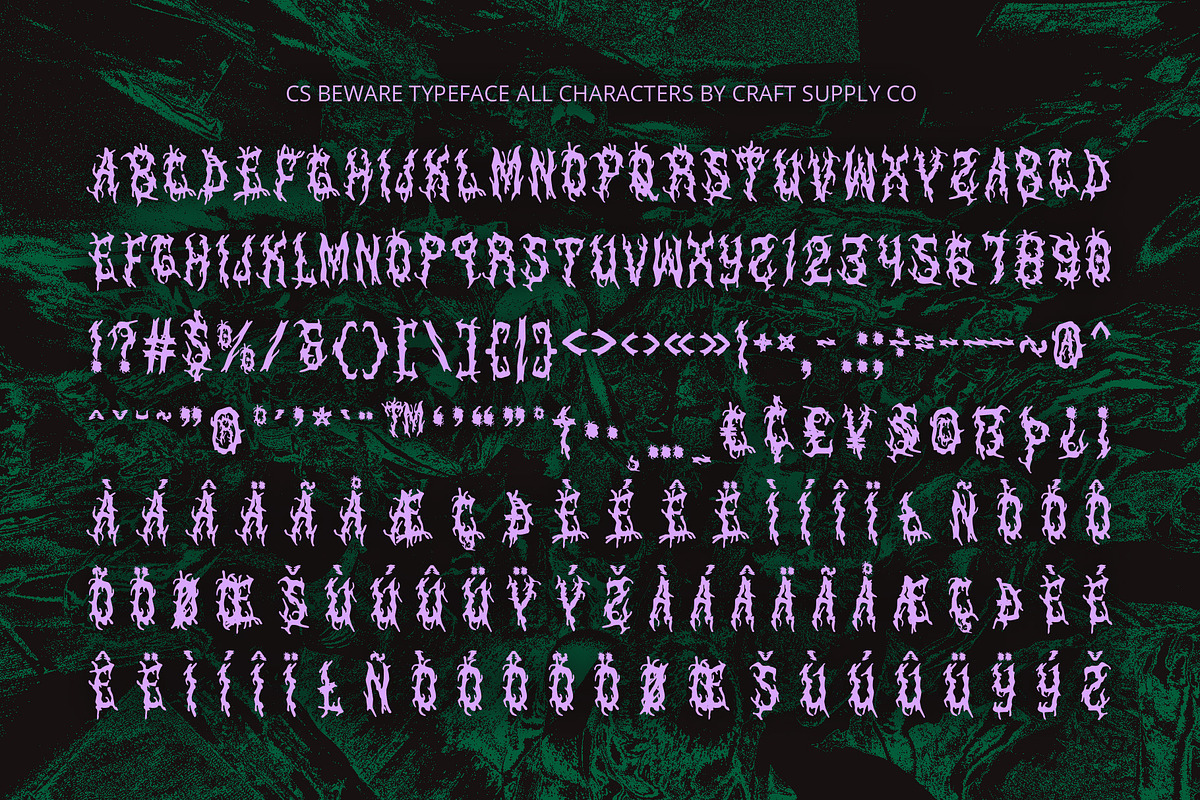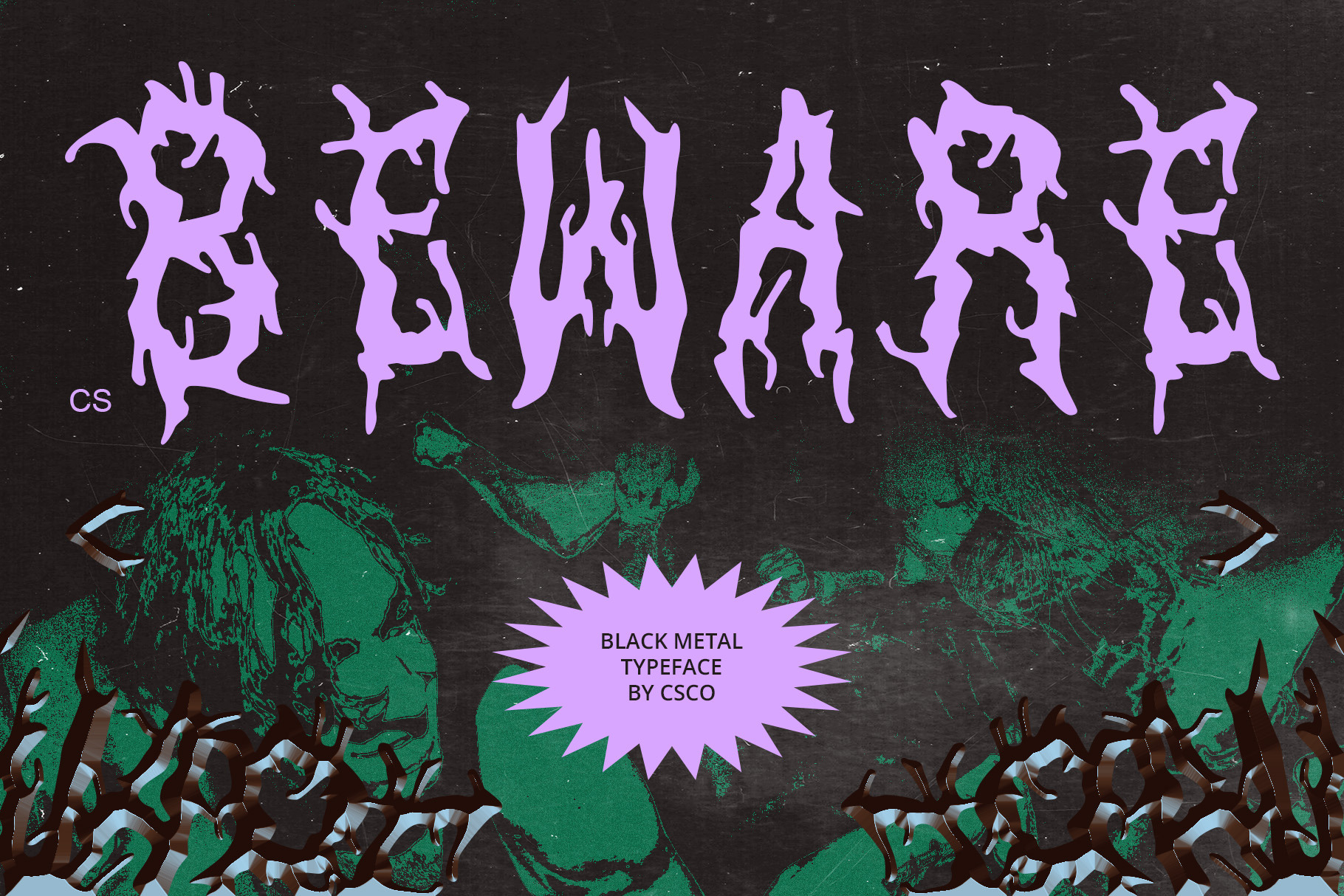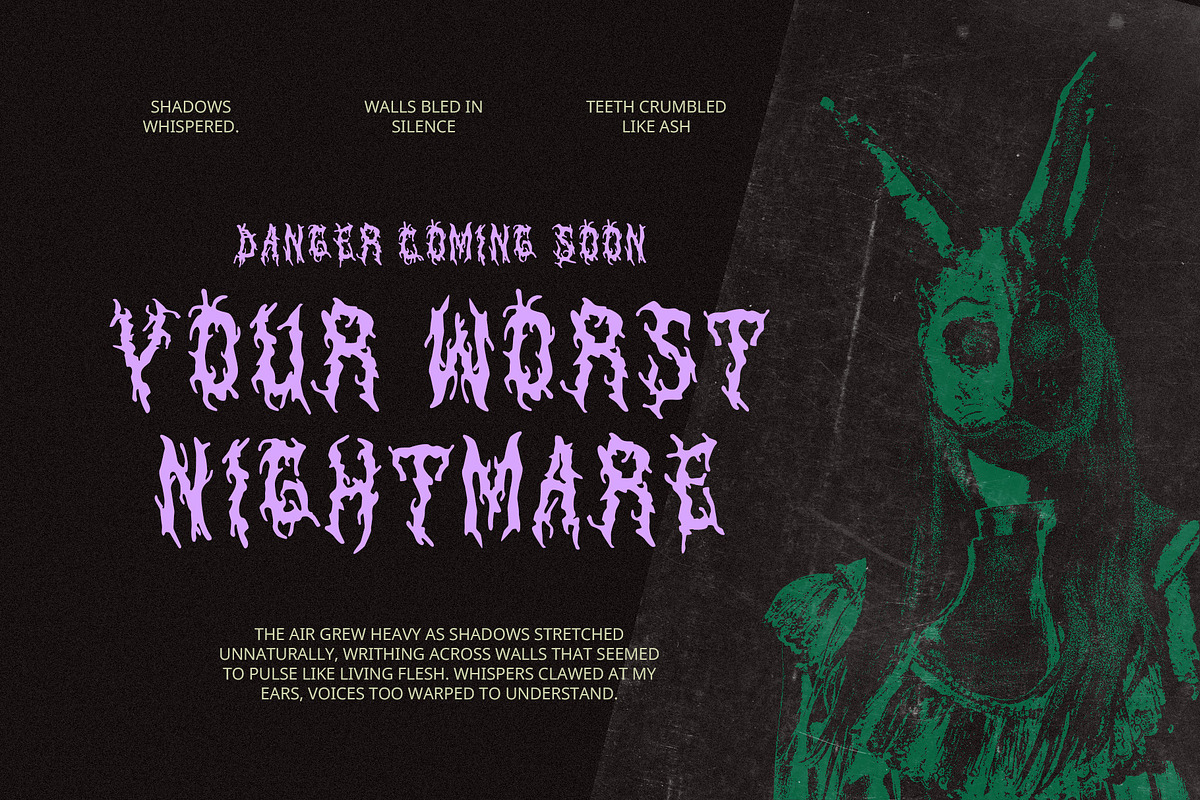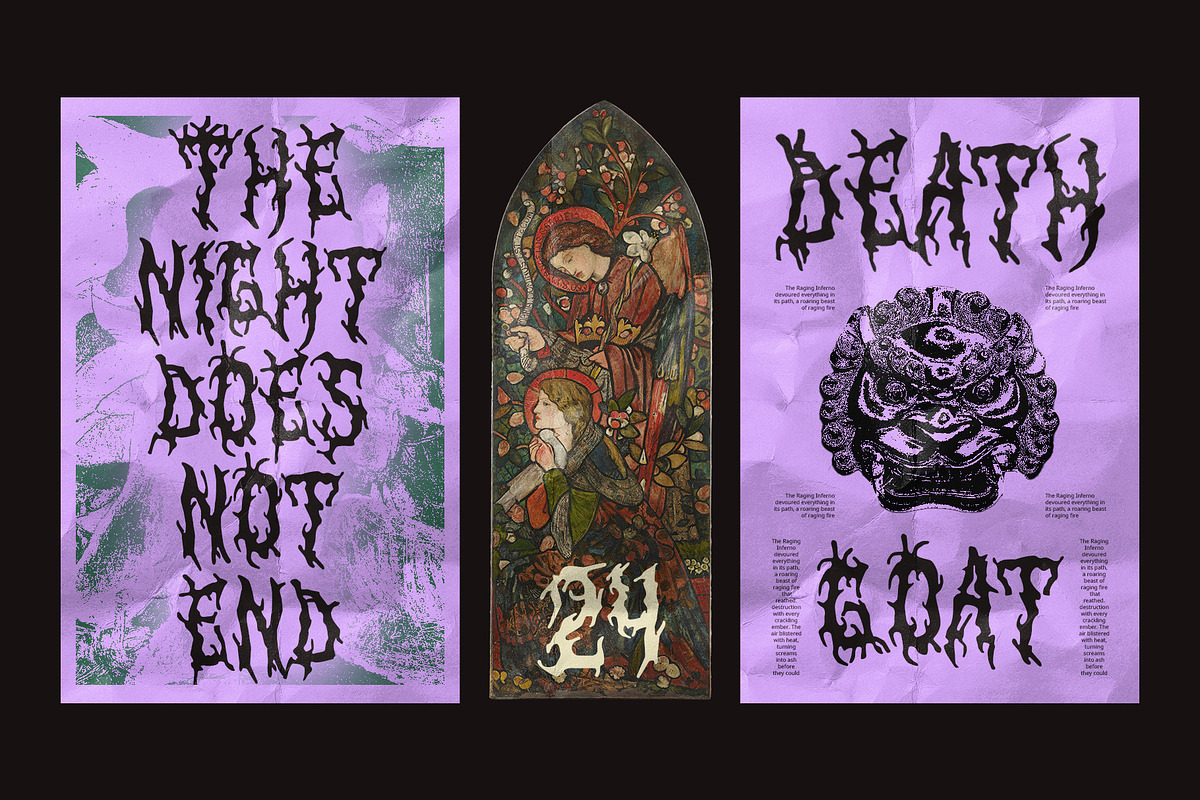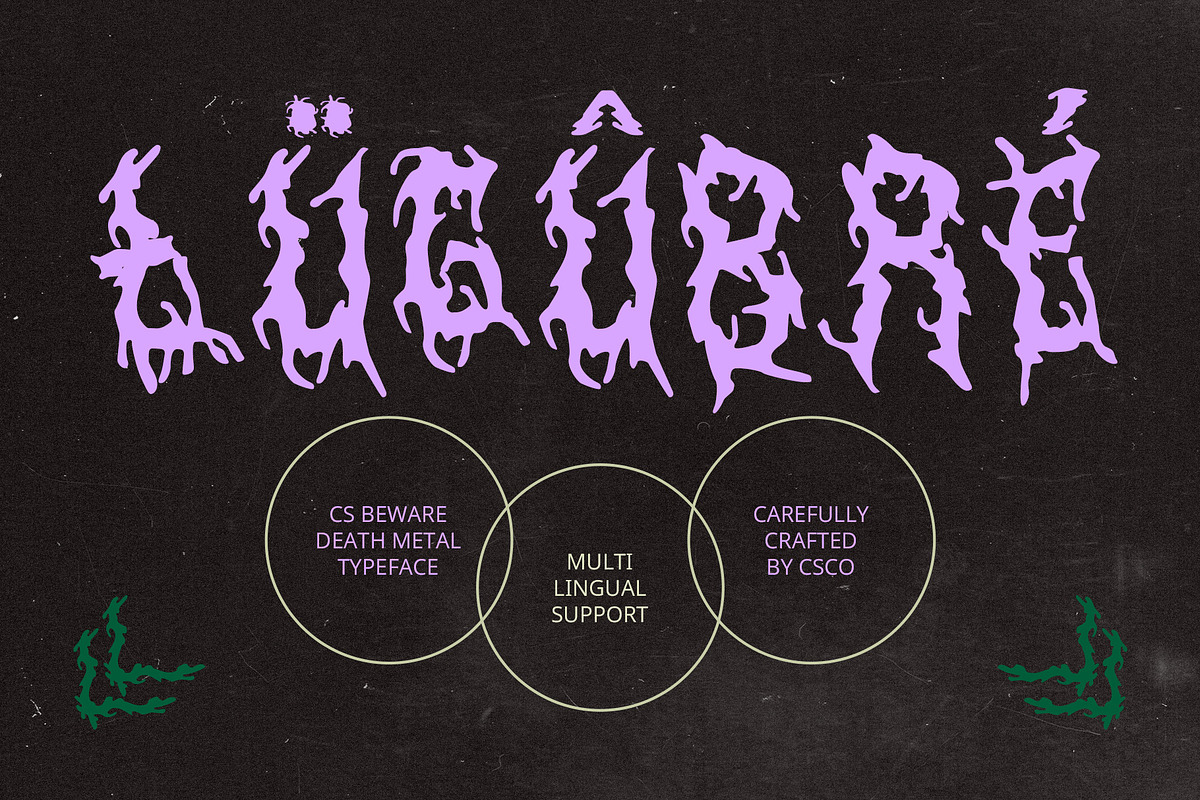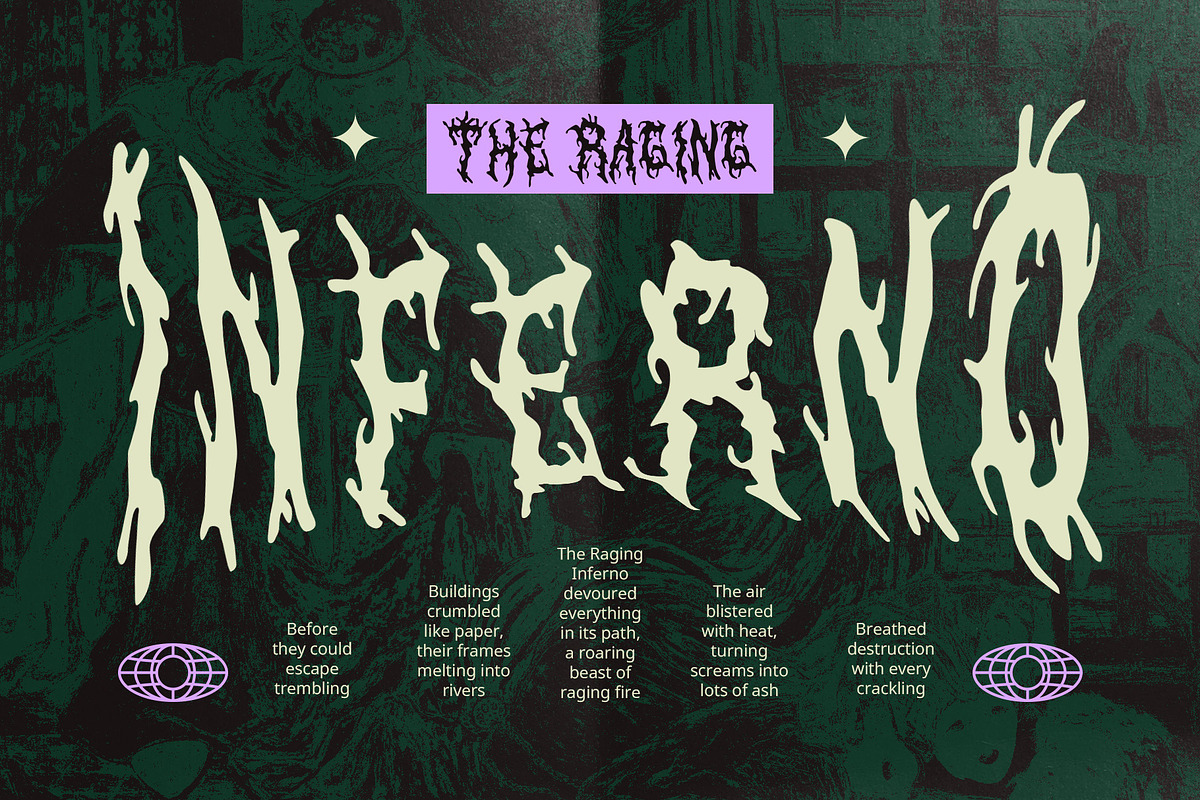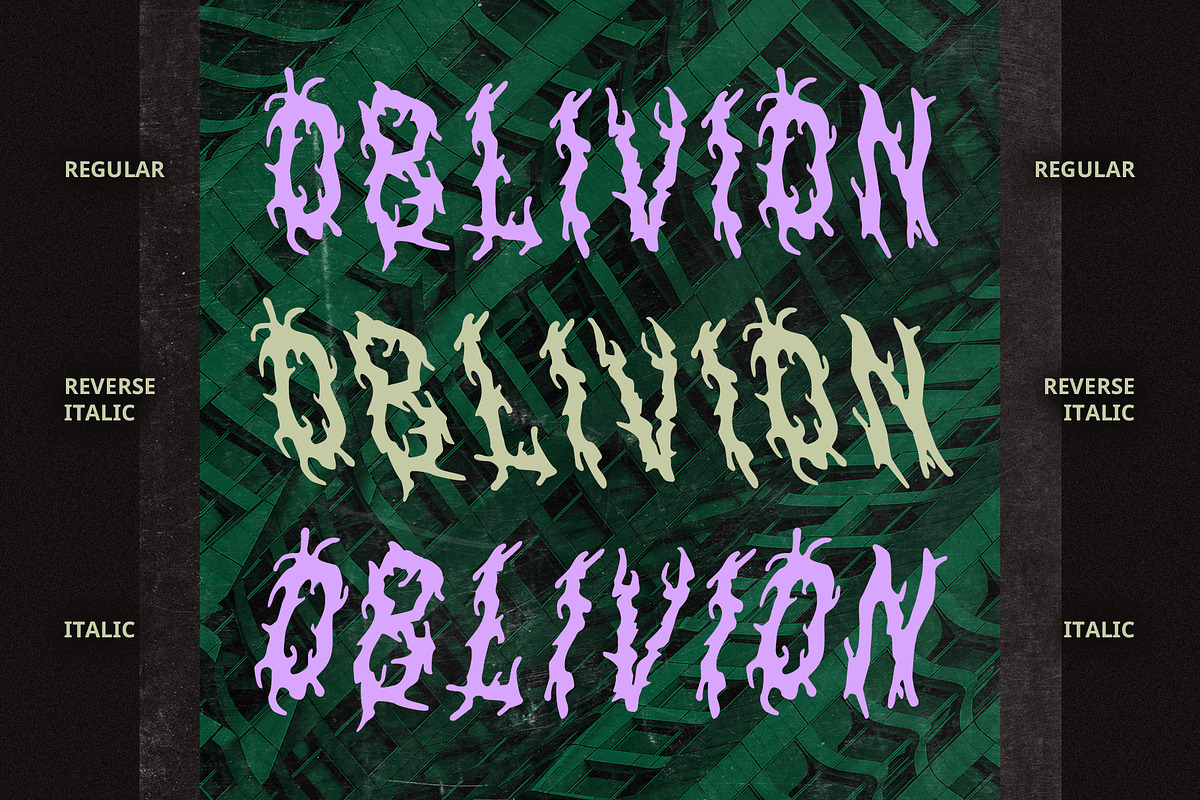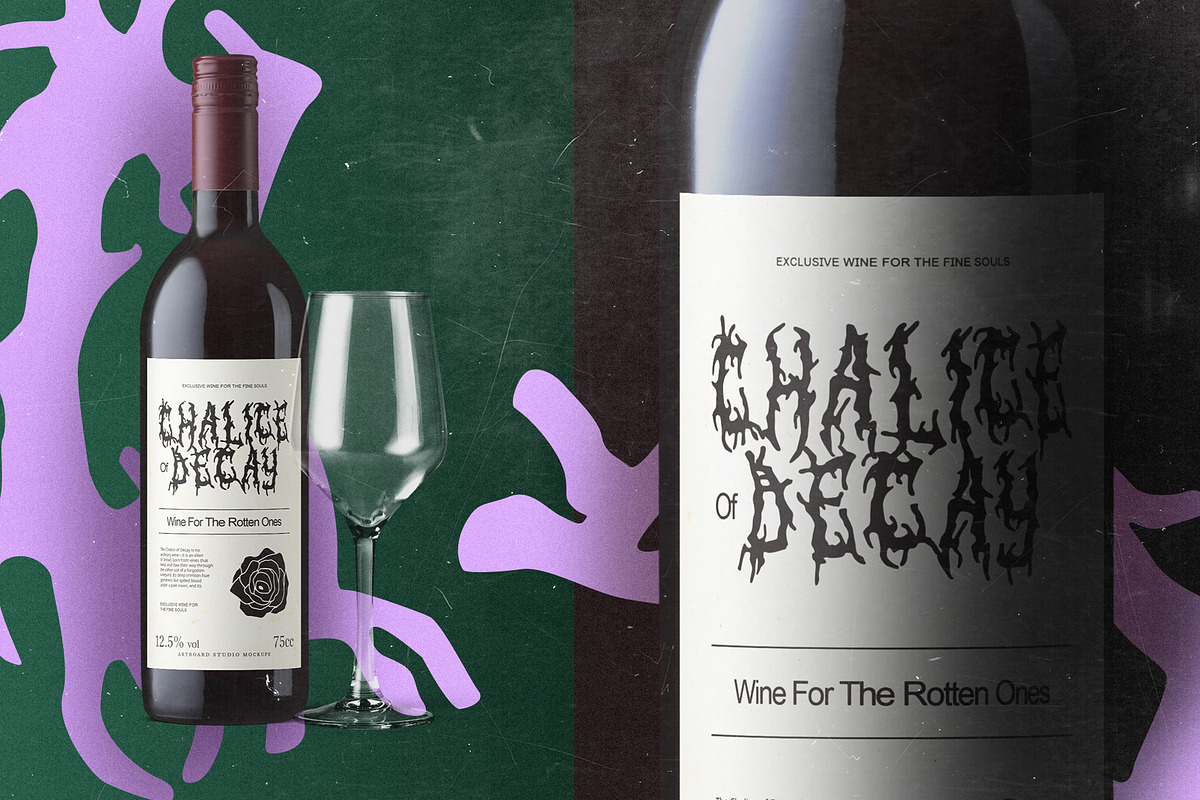
CS Beware – Black Metal Font
CS Beware – Black Metal Font: Unleashing Dark Rebellion
Fierce and Aggressive with Gothic Intricacies CS Beware – Black Metal Font is a bold display typeface inspired by the intense, dark aesthetics of black metal music and culture. This font is a striking reflection of rebellion and raw power, featuring sharp, angular letterforms with jagged edges and intricate detailing. Its design evokes a fierce and aggressive atmosphere, capturing the essence of black metal’s chaotic energy.
Raw Power for Intense Visual Impact Designed to make an impression, CS Beware delivers an unmistakable force in every character. Its jagged and distorted letterforms create an edgy, anarchic look that demands attention. This black metal-inspired font is ideal for music posters, album covers, and other alternative designs that aim to convey an atmosphere of aggression and defiance. The font’s sharpness and bold detailing make it the perfect match for any project requiring a raw.
Ideal for Black Metal Culture and Dark Themes With its deep roots in black metal, CS Beware is an essential typeface for any project tied to the genre or culture. Whether you’re creating album art, gig posters, or any form of visual art that requires a dark and intense feel, this font brings that unmistakable edge. Perfect for designs that embody the power and rebellion of black metal, CS Beware is ready to deliver an unforgettable.